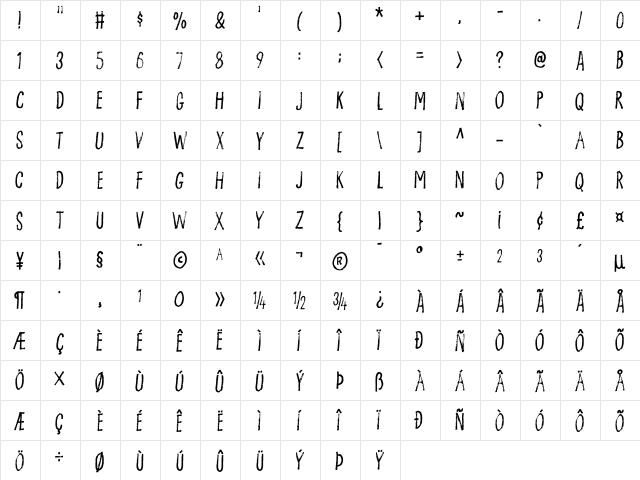
Flottenheimer DEMO Regular
| Designer | Jakob Fischer / pizzadude.dk |
Design Context for Flottenheimer DEMO Typeface
Flottenheimer DEMO is a composed and adaptable typeface that performs quietly and consistently across a wide range of design contexts.